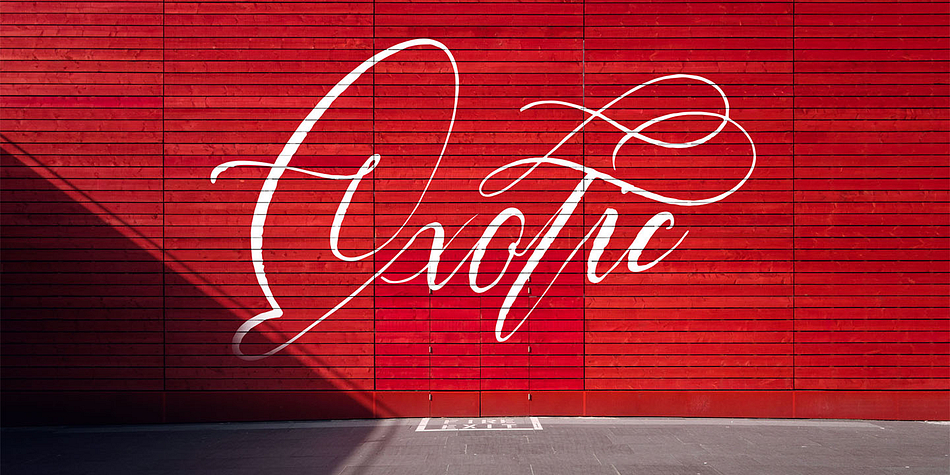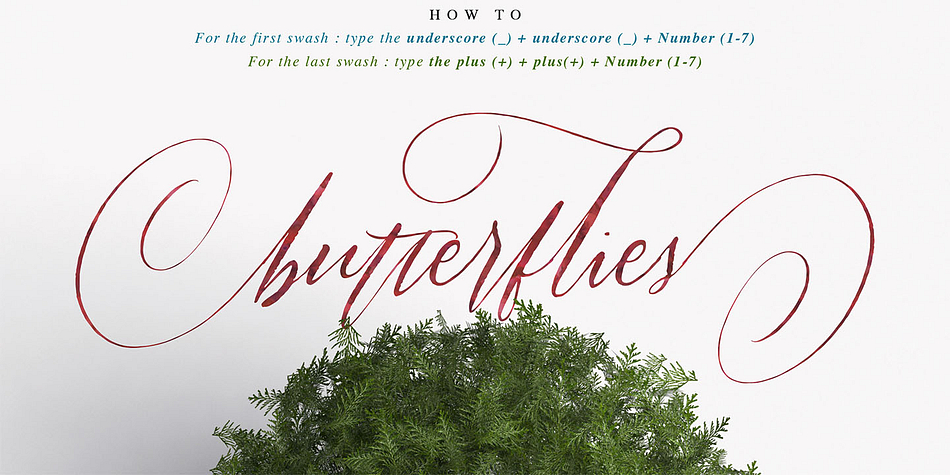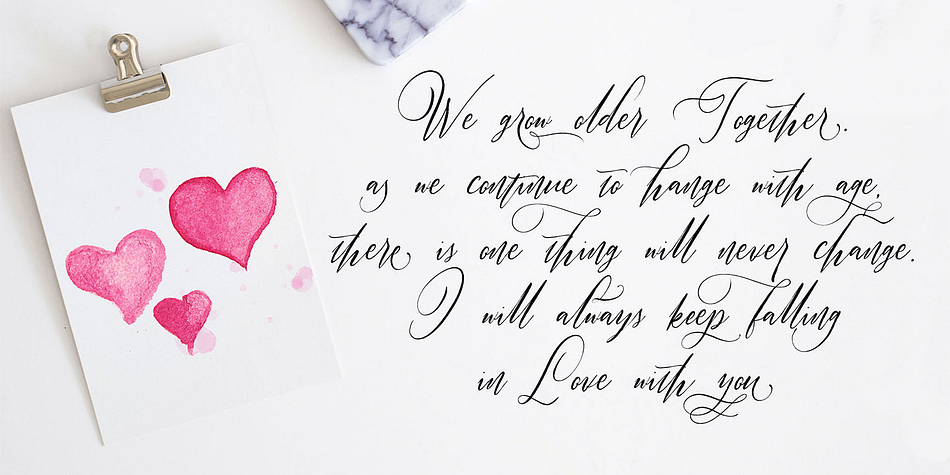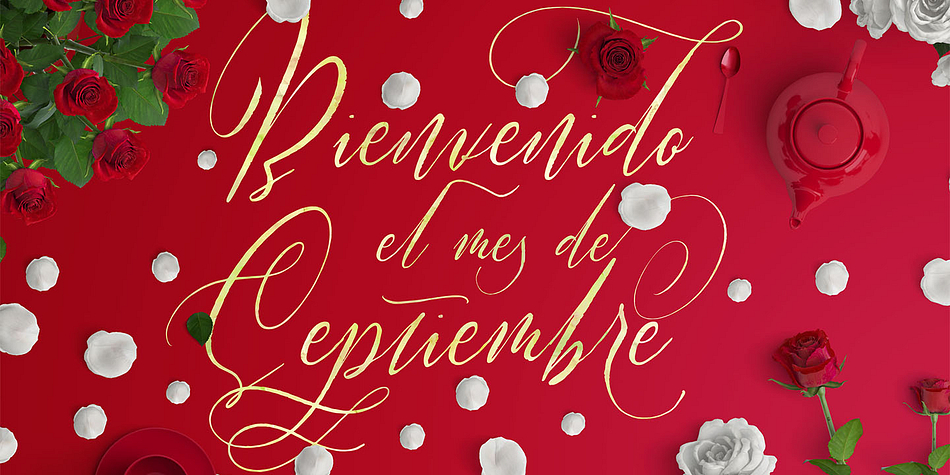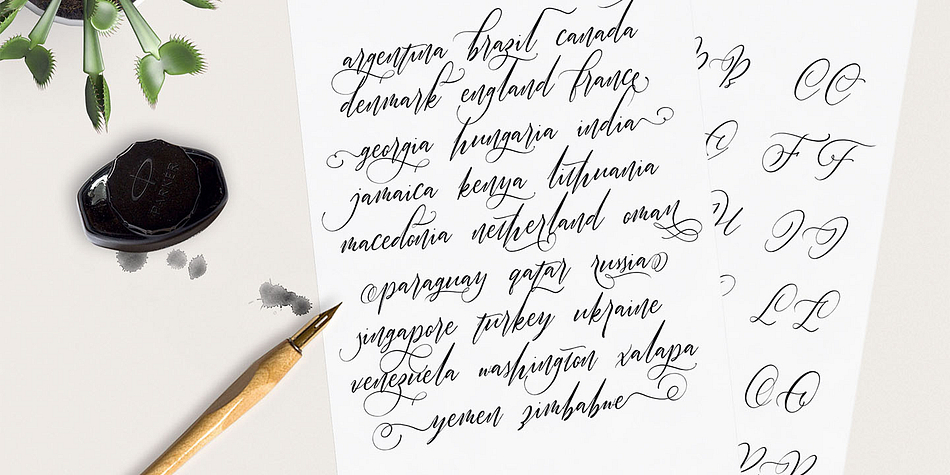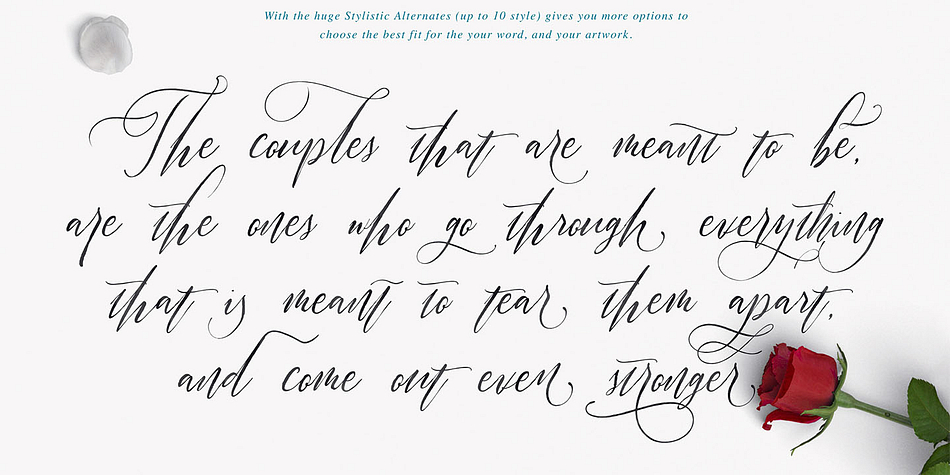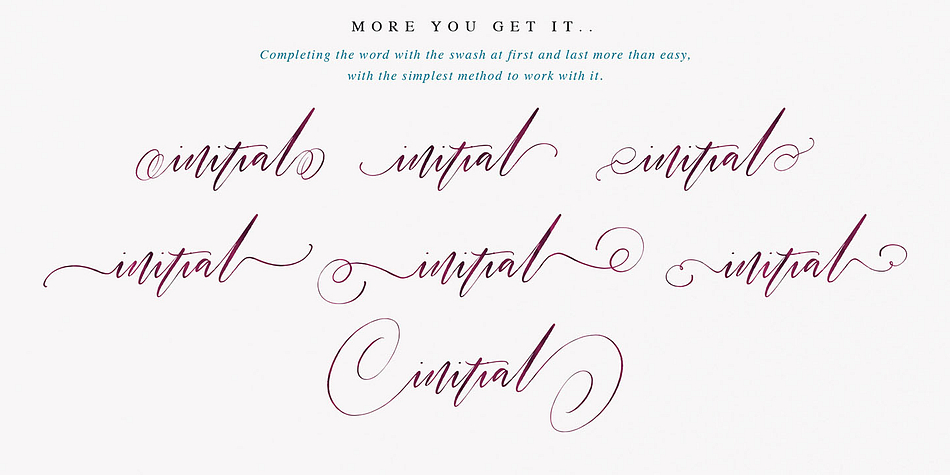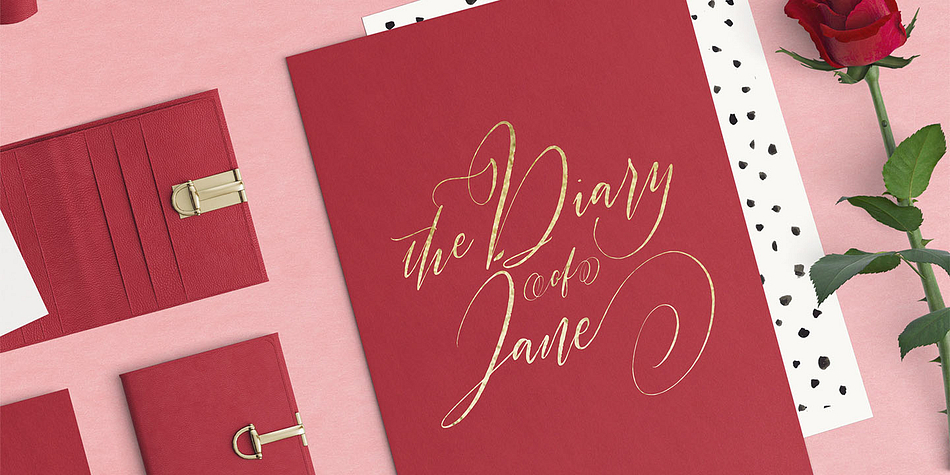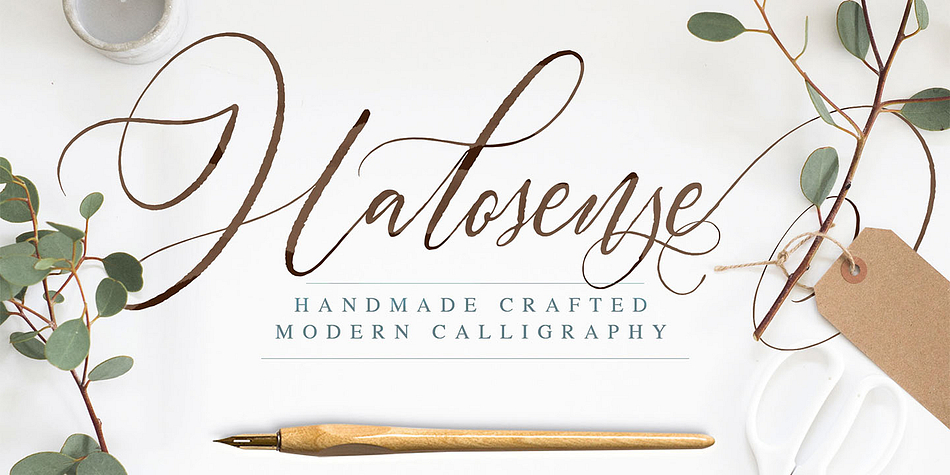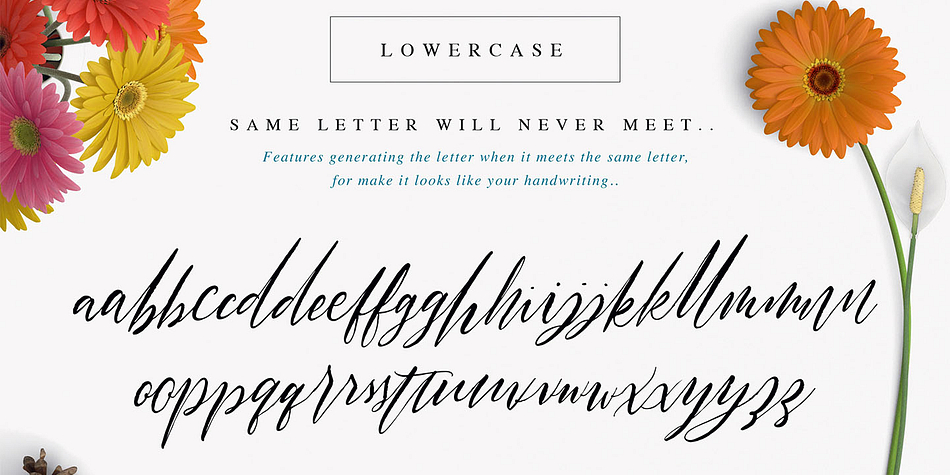
Halosense
Designed by Adam Fathony, Halosense is a modern calligraphy font family published by AF Studio.
Introducing Halosense Handmade Crafted Modern Calligraphy
Referring from the product before called Octavia Script, this new modern calligraphy is more natural feel, handmade created with small touch of digital to make them flowing like a water on the river. :)
This fonts generating more features like CALT (Contextual Alternates), DLIG (discretionary ligatures), SS (Stylistic Set), INIT & FINA (initial and terminal) .
Lowercase : when the letter meets the same letter (aa,bb,cc,etc) there will not having same letter. it will look different a little bit, the function is for make you get the natural feel of hand typing.
Uppercase : Comes with 2 stylistic alternates to give you the option.
Alternate Characters : It’s over than 10 stylistic in some letter, and some alternates which is usable for word.
Swash at first & last : Refined the first & last letter with 7 options, look at display no 5 for the example. and for use, you can use it in type tester below. for the first swash using double underscore + number 1-7 , and for the last swash using double plus + 1-7. To try this method just copy and paste this word = __1beautiful++1 , or __7butterflies++7 .